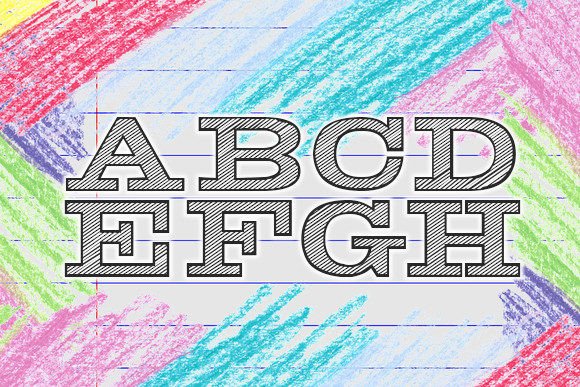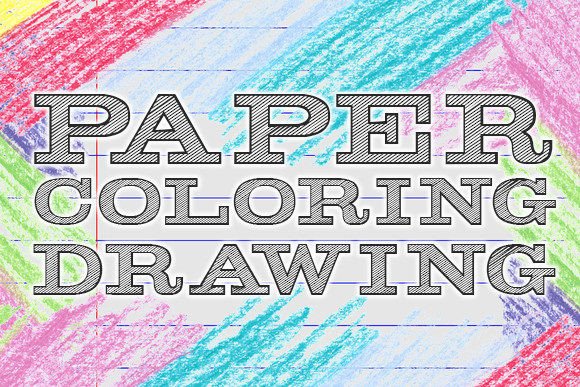
Introduction to Pen Font
Have you ever been working on a creative project and stumbled upon the perfect font, only to realize it’s not quite right? You know, that moment when you’re trying to bring your vision to life, but the typeface is holding you back? For designers, finding the right font can be a game-changer.
What Makes Pen Font Special
Enter the Pen Font, a cool and unique decorative slab serif typeface that’s sure to elevate your design. Its simple and versatile look makes it suitable for a wide spectrum of applications, from branding and marketing materials to digital graphics and even print design. What sets Pen Font apart is its high-quality design, perfect for any designer looking to add a touch of sophistication to their project.
Unlocking the Power of Pen Font
With its transparent background and free download availability, the Pen Font is an invaluable resource for designers. Whether you’re working on a commercial project or a personal creative endeavor, this font is sure to provide the perfect finishing touch. So why settle for an ordinary font when you can have a Pen Font that truly stands out?
Key Features of Pen Font
- Unique hand-drawn style with subtle imperfections for a personal touch
- Perfect for digital designers, artists, and writers seeking a distinctive font for their work
Honest Review: Pen Font
As a designer, I’m always on the lookout for high-quality resources to elevate my creative projects. Recently, I stumbled upon the Pen Font, a free download that’s gained quite a following in the design community. Let’s dive into the pros and cons of this popular font.
- Unique aesthetic: The Pen Font boasts a distinct, hand-drawn style that’s perfect for adding a personal touch to designs.
- High quality: The font is incredibly detailed and well-crafted, making it a great choice for printing or digital applications.
- Transparent background: The font’s transparent background makes it easy to overlay on top of other designs or images.
- Limited character set: The Pen Font has a relatively small character set, which may not be ideal for projects that require a wide range of characters.
- Not suitable for body text: Due to its unique style, the Pen Font is best used for headings, titles, or other design elements where a bold, eye-catching font is desired.
Overall, I’m impressed with the Pen Font’s unique aesthetic and high quality. While it may have some limitations, it’s a great addition to any design resource collection. Whether you’re working on a creative project or simply looking for a free download, the Pen Font is definitely worth checking out.
Pen Font
The Pen Font is a unique and creative design resource that offers a high-quality, transparent background, making it perfect for various projects. To get the most out of this font, follow these steps:
Tips for Getting the Most Out of the Pen Font
Here are a few tips for getting the most out of the Pen Font:
- Experiment with different font sizes and styles.
- Combine the Pen Font with other design elements for a unique look.
- Use the font in creative projects such as logos, social media graphics, and more.
The Pen Font is perfect for a variety of projects, including:
- Logos
Alternatives to Pen Font
Lobster Font is a stylish script font ideal for creative projects, especially those that require a touch of elegance. It’s perfect for designing invitation cards, wedding invitations, or any other design where a cursive script is required.
Compared to Pen Font, Lobster Font offers a more refined and polished look, making it suitable for high-quality design resources. It’s available for free download and comes with a transparent background, making it easy to use in various design projects.